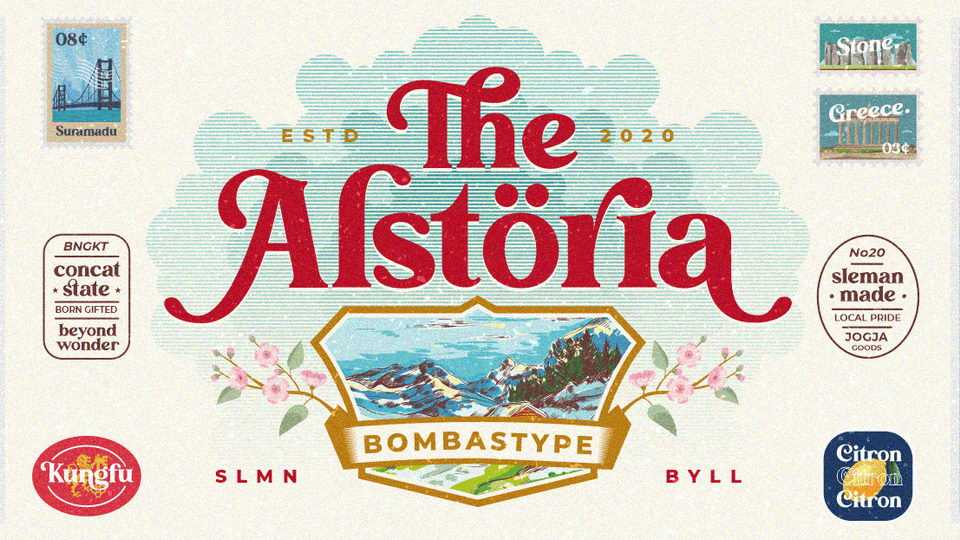
Download Alstoria font, a bold display serif typeface that works well for vintage and modern style projects. Alstoria is suitable for branding, packaging, printing, header, and many more.
Designer: BombasType